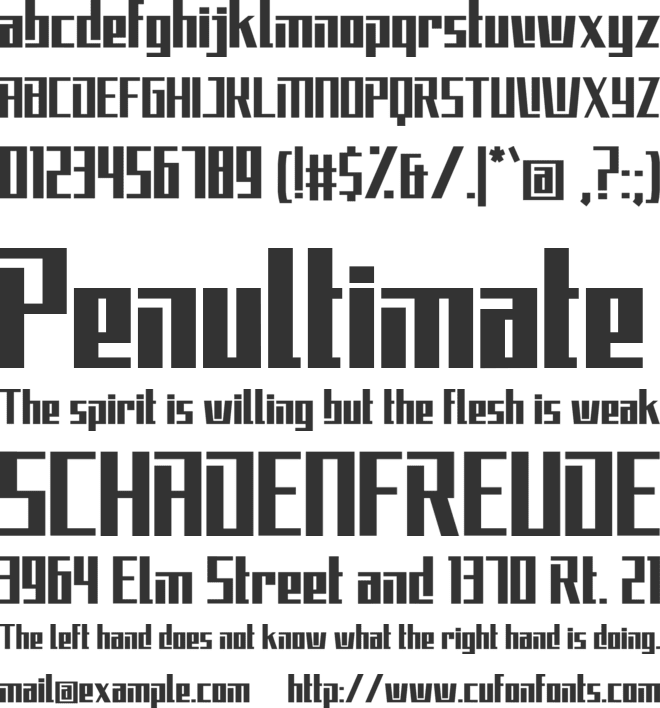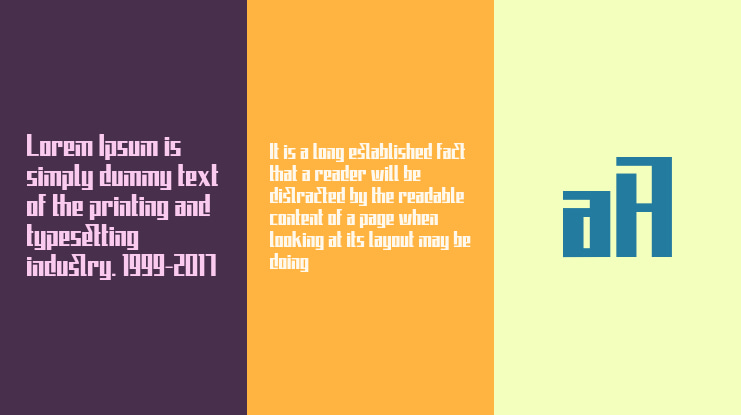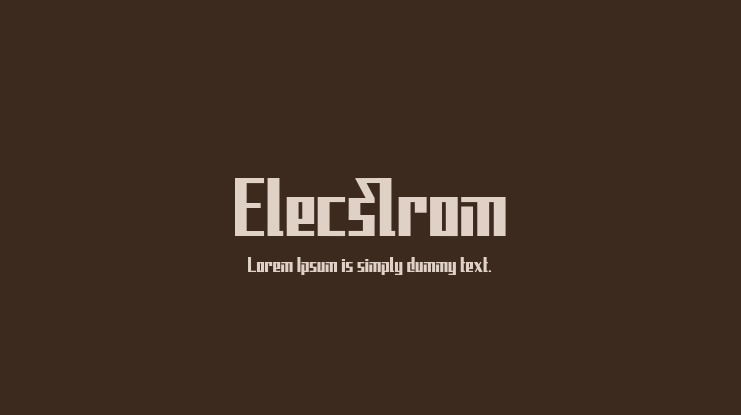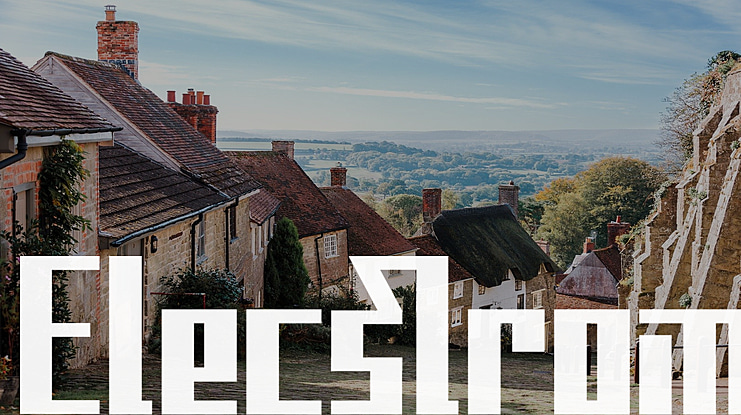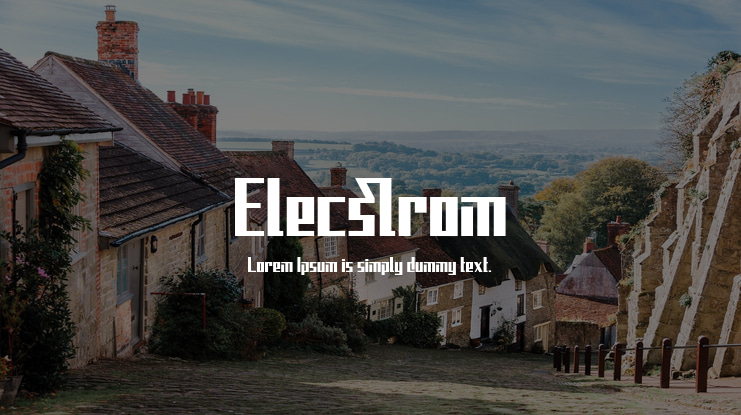
Elecstrom Font
Elecstrom is a storm display font. Elecstrom has a bad weather feels so it has thrilling yet cool experience. Elecstrom is perfect for product cover, signpost, cover album, movie with disaster theme, game, and many more!Full Version Download Here :https://typefactory.co/product/elecstrom-storm-display-font/https://www.creativefabrica.com/product/elecstrom/ref/501262/